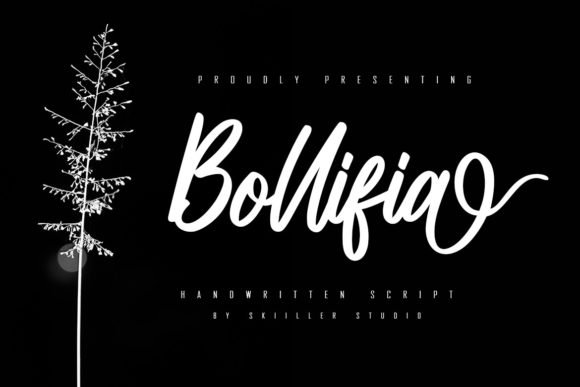
Discover the Elegance of Bollifia Script Font
Have you ever found yourself stuck in a design rut, searching for that perfect font to bring your project to life? The blank page stares back at you, and you’re left wondering where to begin. It’s a feeling every designer knows all too well. But what if I told you there’s a font that can transport you to a world of elegance and sophistication? Introducing the Bollifia Script Font, a flowing handwritten font that’s perfect for adding a touch of class to your favorite projects.
With its incredibly distinct and timeless style, the Bollifia Script Font is a valuable asset for any designer looking to create spectacular designs. Whether you’re working on a wedding invitation, a branding project, or a simple greeting card, this font is sure to leave a lasting impression. Its elegant touch makes it the perfect choice for designers who want to add a touch of sophistication to their work.
Bollifia Script Font Key Features
- Font Family: Bollifia Script
- Unique Characteristics: Elegant script design, flowing connections, and subtle flair make it ideal for invitations, wedding stationery, and other creative projects
Bollifia Script Font Review
I’ve had the chance to work with the Bollifia Script font, and I’m excited to share my honest review with you. ✨ One of the things that I love about this font is its elegant and refined feel. It’s perfect for creating beautiful, high-end designs that exude sophistication and style.
Here are some specific things that I think work well with the Bollifia Script font:
- ✨ The flow of the script is smooth and consistent, making it easy to read and work with.
- ✨ The font comes in a range of weights and styles, giving you plenty of options for customization.
- ✨ It’s highly legible, even at smaller font sizes, making it perfect for body text and other smaller design elements.
Of course, no font is perfect, and the Bollifia Script has its limitations:
- ⚠️ It’s not suitable for bold or loud designs, as it can come across as too delicate or dainty.
- ⚠️ It may not be the best choice for projects that require a lot of bold headings or large font sizes.
Overall, I think the Bollifia Script font is a great addition to any designer’s toolkit. While it may have some limitations, its elegant feel and smooth flow make it a great choice for a wide range of design projects.
Getting the Most Out of Bollifia Script Font
For the best results, use Bollifia Script Font for titles, headings, and other decorative text. Pair it with a clean and simple font for body text to create a visually appealing contrast.
Bollifia Script Font is ideal for:
- Food and beverage packaging
- Special event graphics
Q: Is Bollifia Script Font available in multiple font weights?
Yes, Bollifia Script Font is available in multiple font weights, including Regular, Bold, and Italic. This allows designers to create a range of visual effects and emphasize specific text elements.
Q: Can I customize the font’s ligatures and swashes?
Yes, Bollifia Script Font includes a range of ligatures and swashes that can be customized to create unique and personalized designs. You can use font editing software such as FontForge or Glyphs to modify the font’s ligatures and swashes.